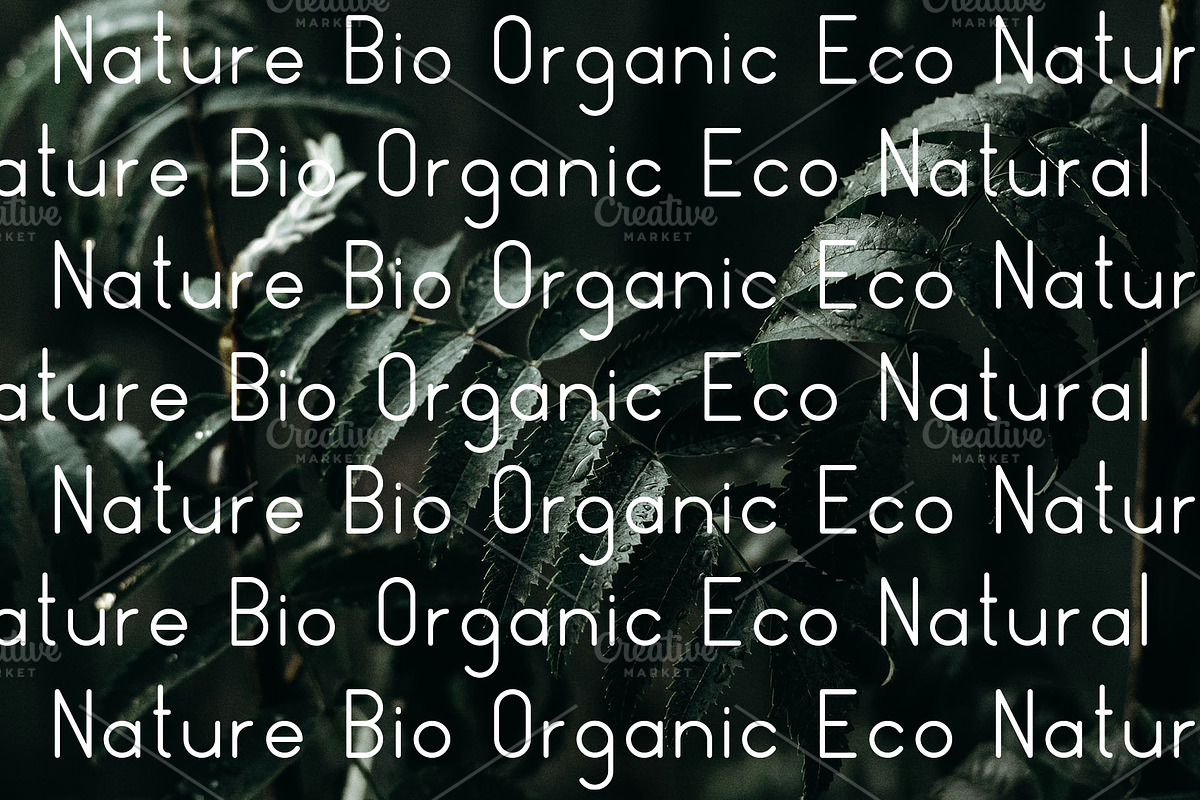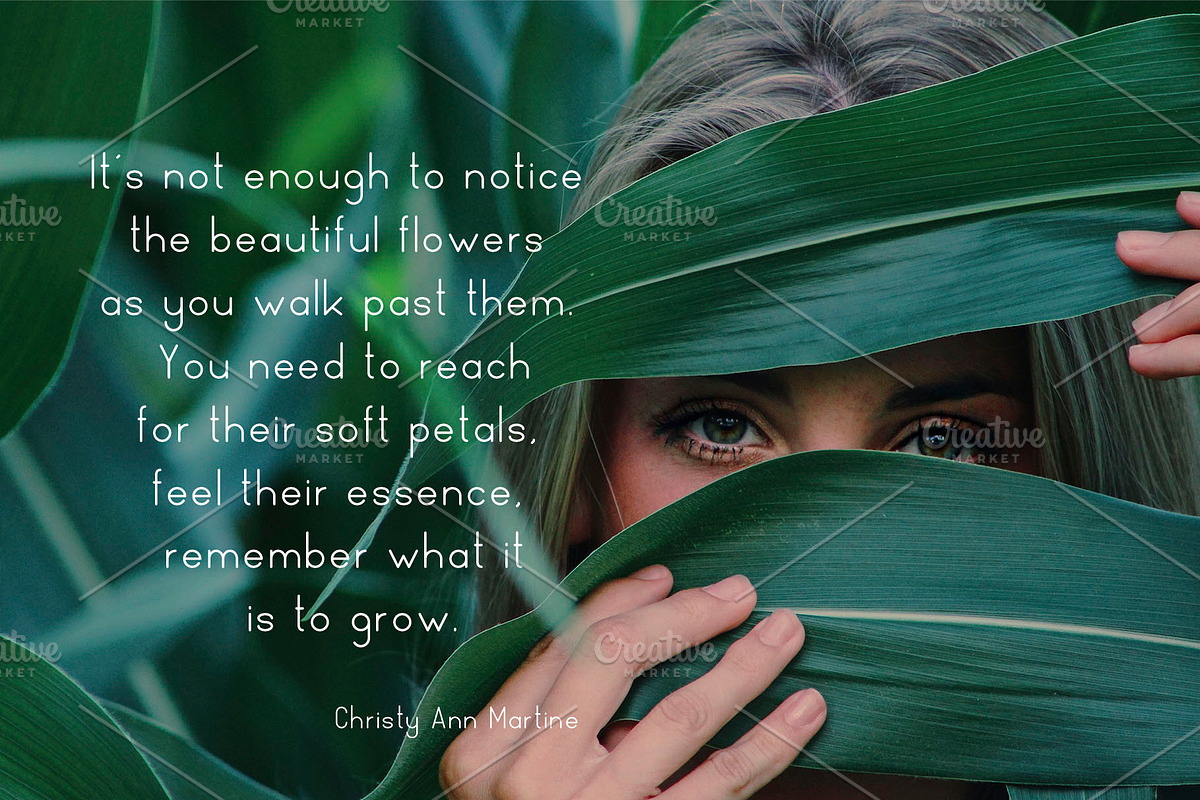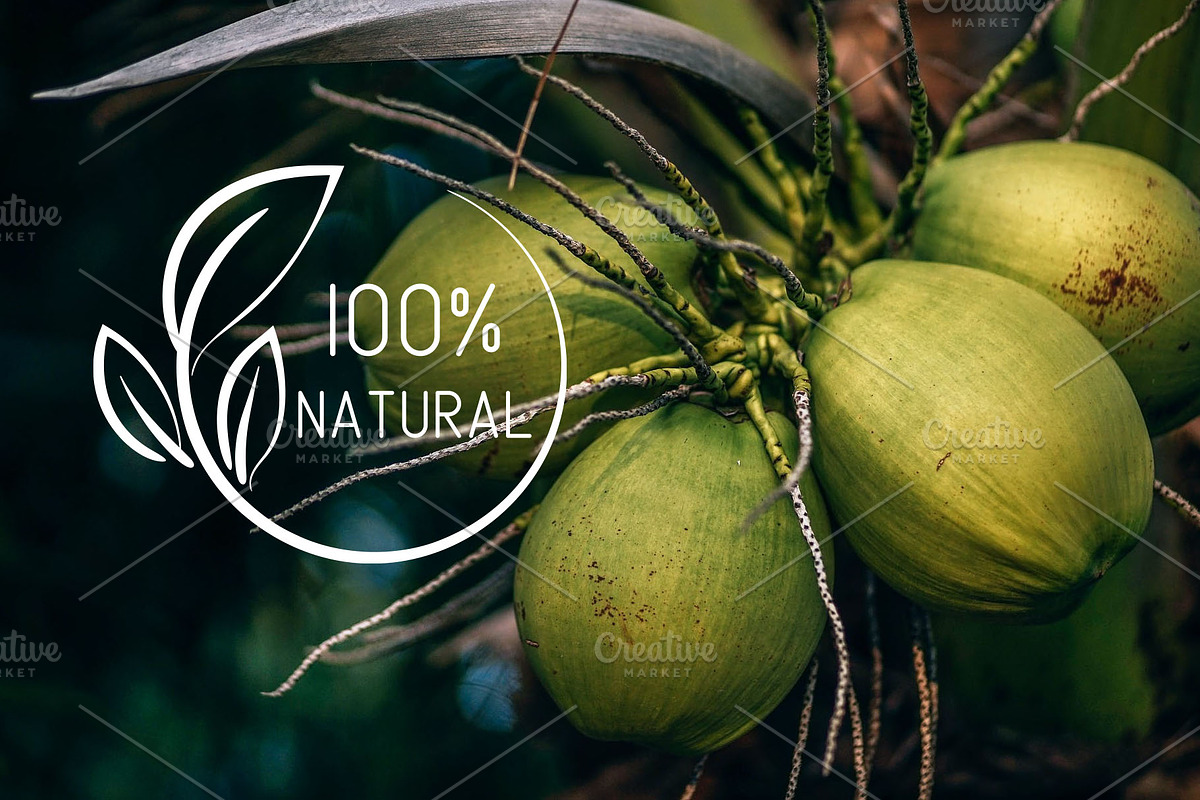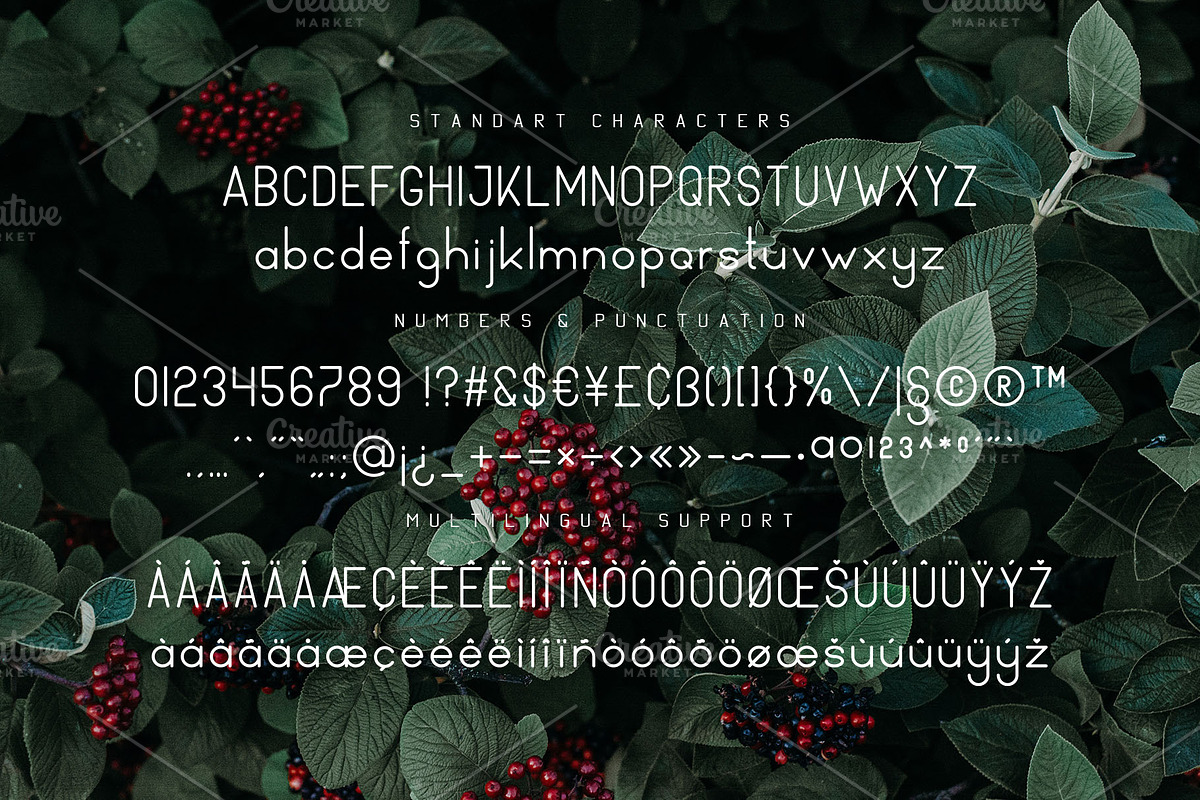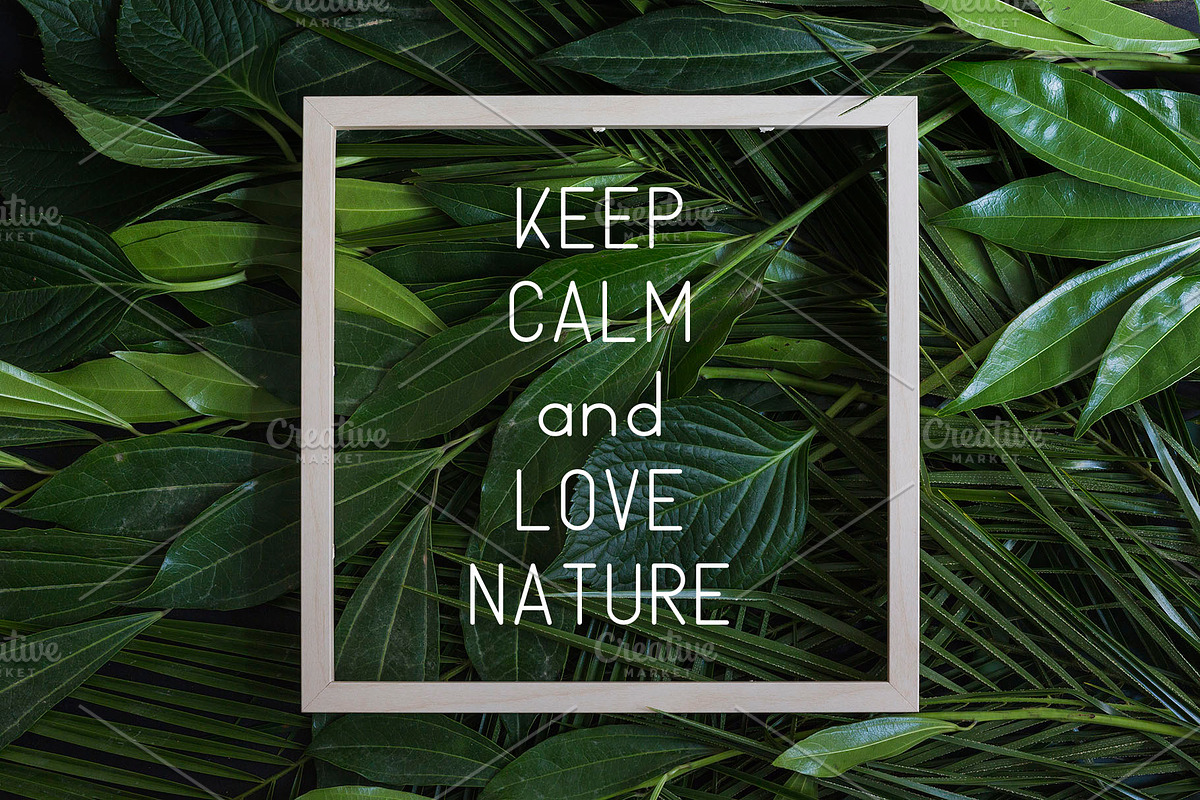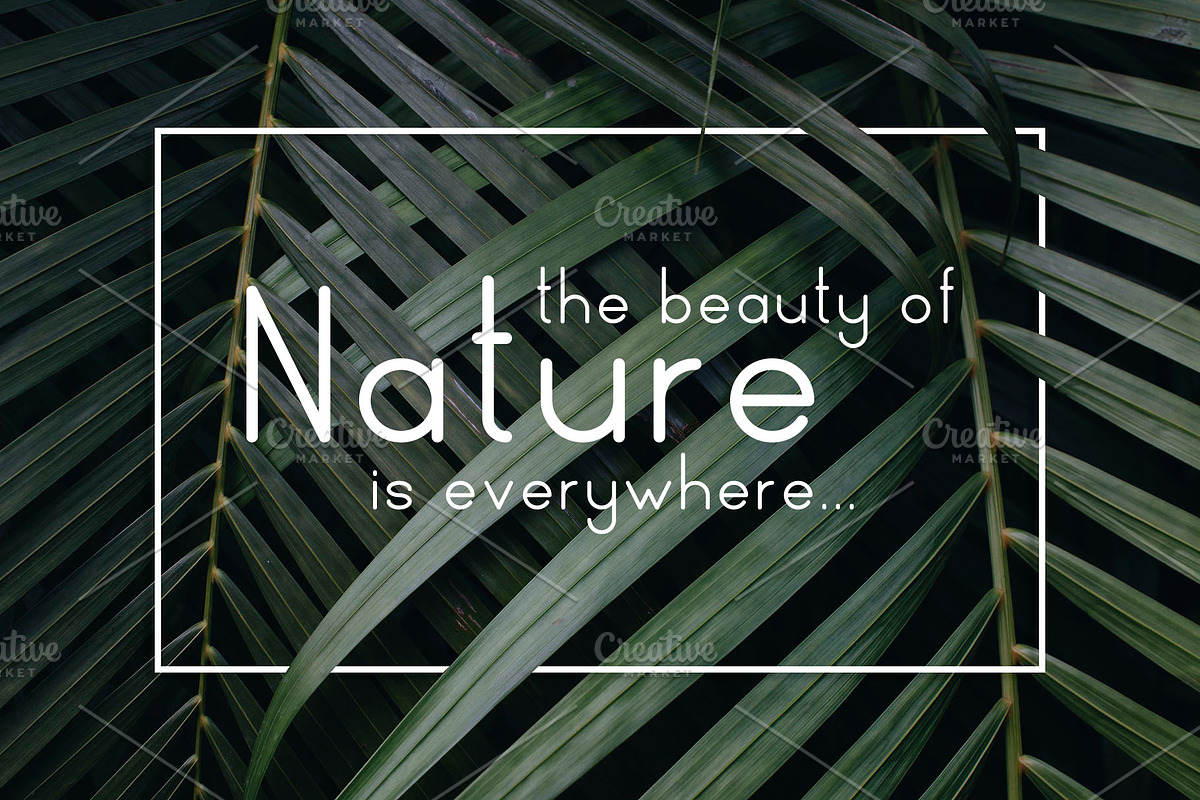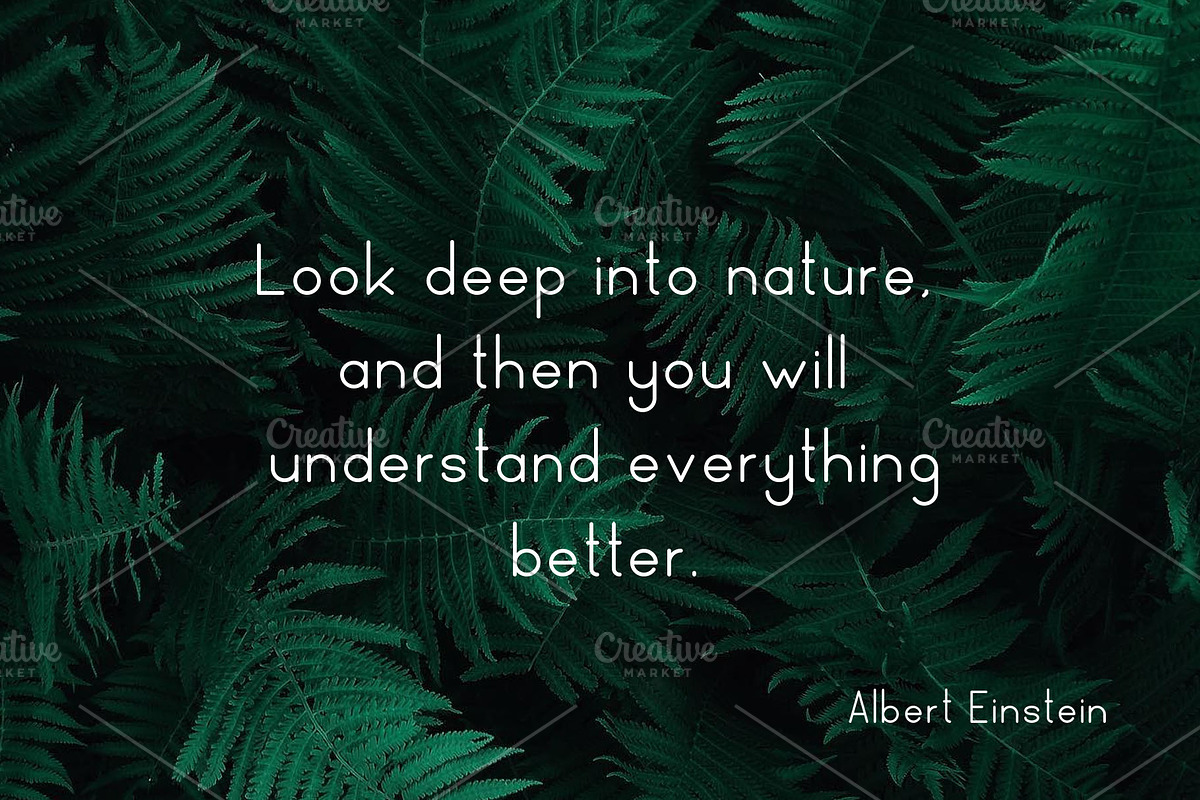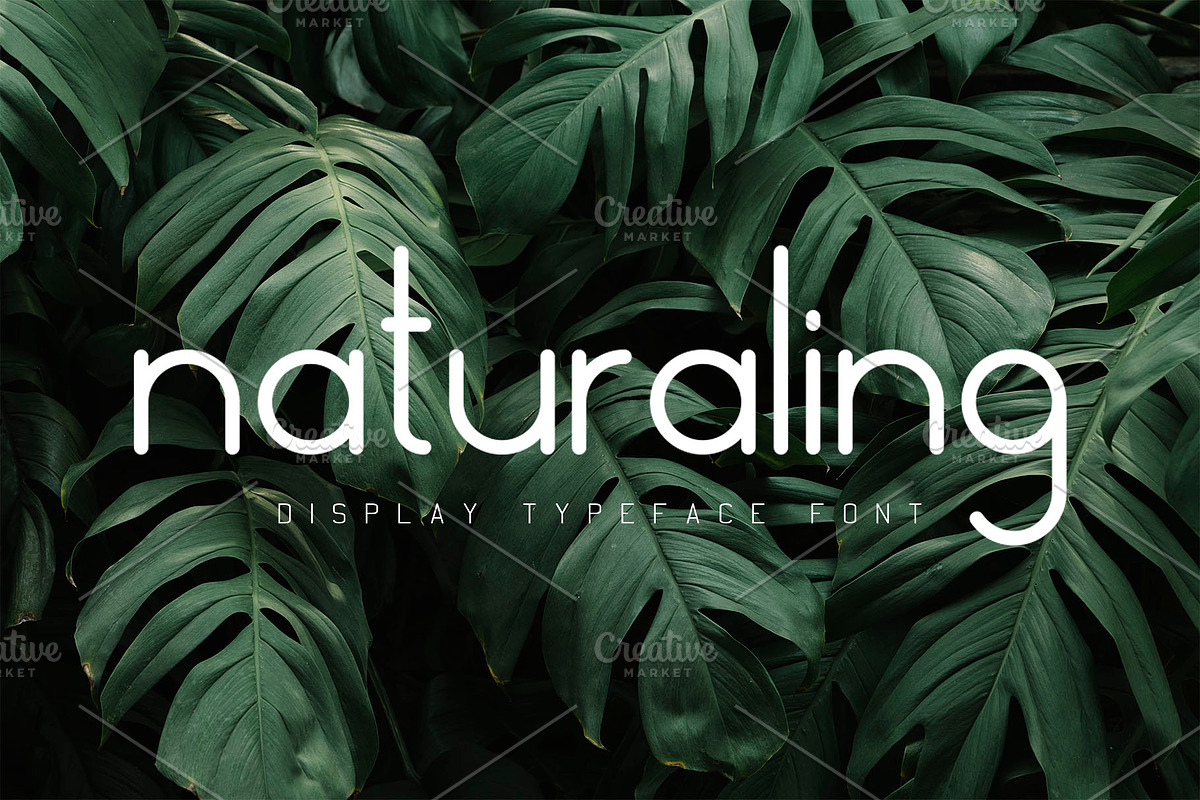
Naturaling Display Font
Naturaling - it's display typeface font, aimed at defining healthy lifestyles and nutrition. Font perfect for use in organic foods, medication, cosmetics, packaging, prints design and also identity projects.